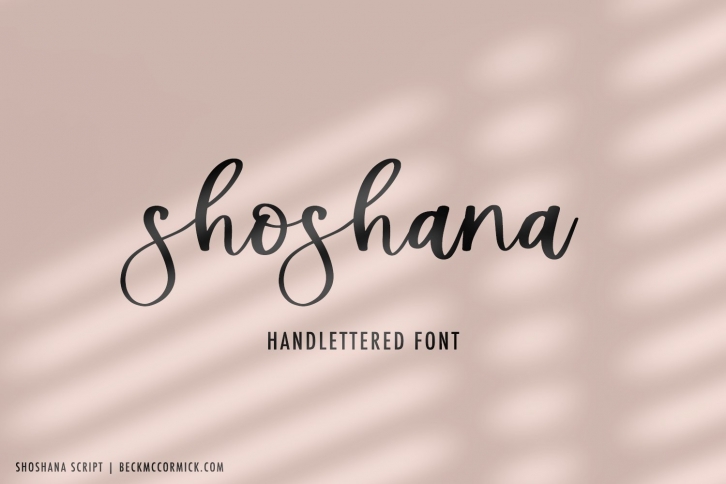
Shoshana Script is a gorgeous font that was realeased on June 26, 2022. The font can be used in many style contexts and design environments. Perfect for invitations, magazines, websites, logos, and more! It was designed by BeckMcCormick and the file size is 15.64 MB. Thanks for checking out this font!